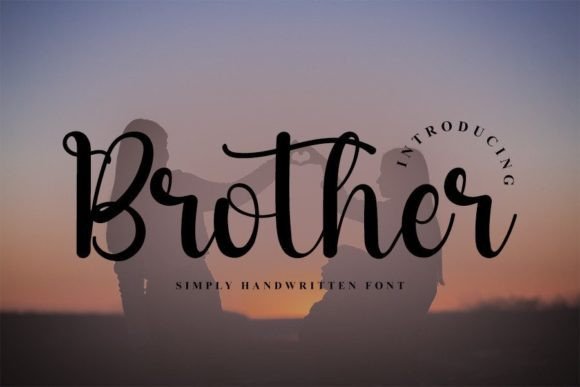
Discover the Timeless Elegance of Brother Font
Do you remember that moment when you stumbled upon the perfect font for your project, and everything just clicked into place? It’s a feeling that’s hard to replicate, but when it happens, it’s pure magic. For designers and creatives, finding the right font can make all the difference between a good design and a great one. And that’s exactly what Brother Font is all about – adding a touch of elegance and sophistication to your favorite projects.
Brother Font is a beautiful handwritten font that exudes an air of refinement and poise. Its distinct style is perfect for designers who want to create designs that are both timeless and spectacular. Whether you’re working on a branding project, a wedding invitation, or a personal blog, Brother Font is an excellent choice. With its versatility and unique charm, it’s no wonder that designers are falling in love with this font.
Key Features of Brother Font
- Unique Characteristics: Features a distinctive, modern design with a strong emphasis on readability, making it ideal for body text and titles in various applications.
Brother Font Review
I’ve had the chance to work with the Brother Font, and I must say it’s a mixed bag. Here are my thoughts.
- Unique Character: The Brother Font has a distinctive character that sets it apart from other fonts. It’s perfect for adding a touch of personality to your designs.
- Legibility: The font is highly legible, making it suitable for body text and other content that requires clear readability.
- Neutral Background: The font’s design allows it to sit well on a neutral background, making it easy to pair with other design elements.
- Limited Expressiveness: While the font has a unique character, it may not be expressive enough for certain design projects that require a lot of emotional depth.
- Not Ideal for Small Text: The font’s design may not be suitable for small text sizes, as the characters can become difficult to read.
- Not as Versatile as Other Fonts: The Brother Font may not be as versatile as other fonts, making it less suitable for projects that require a lot of variation.
Overall, the Brother Font is a solid choice for designers who want a unique and legible font. However, it may not be the best fit for every project. With some careful consideration and pairing, it can be a great addition to your design toolkit.
Getting the Most Out of Brother Font
To get the most out of Brother Font, consider the following tips:
- Use Brother Font for headings and titles to create a bold and eye-catching effect.
- Pair Brother Font with a sans-serif font for body text to create a clean and modern look.
- Experiment with different font sizes and colors to create visual hierarchy and emphasis.
Brother Font is commonly used for:
- Headings and titles in marketing materials and advertisements.
- Body text in corporate communications and reports.
- Display text in social media graphics and posters.